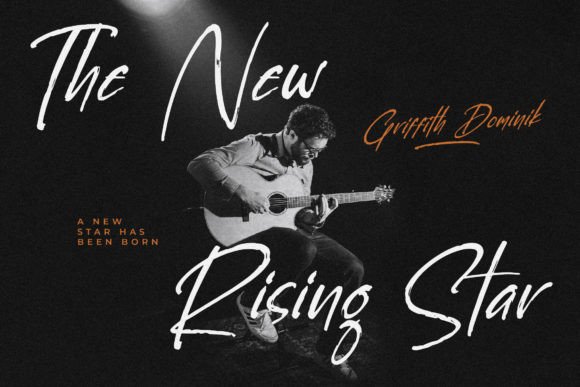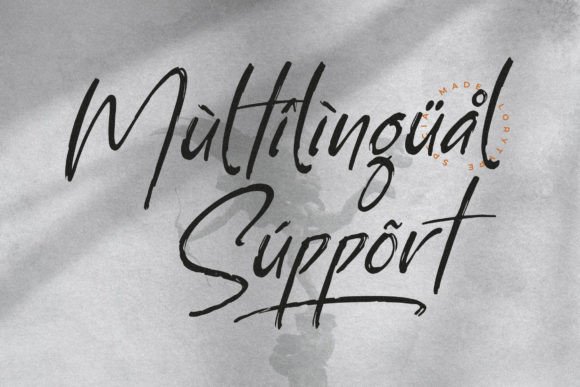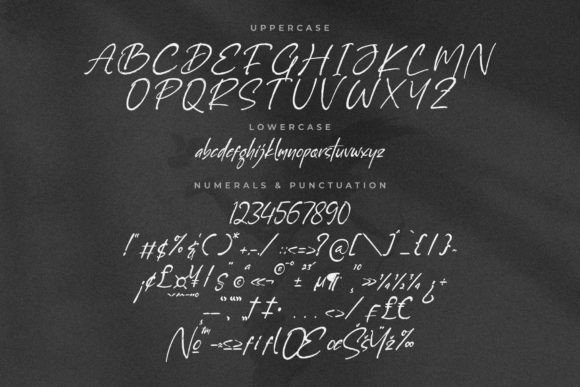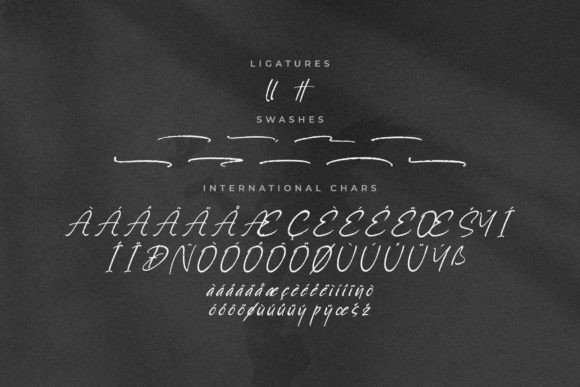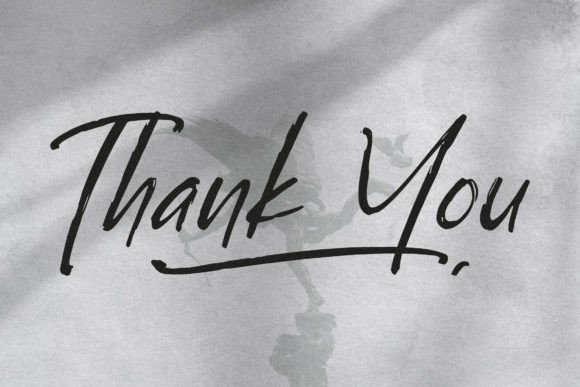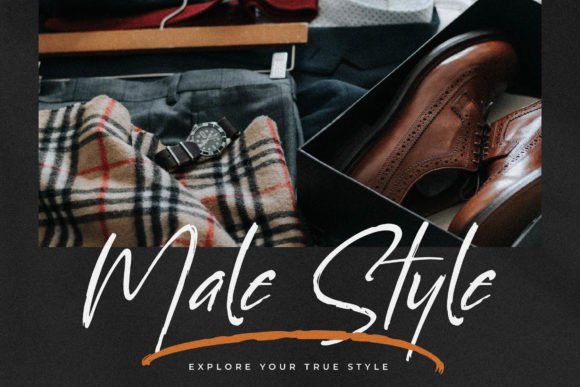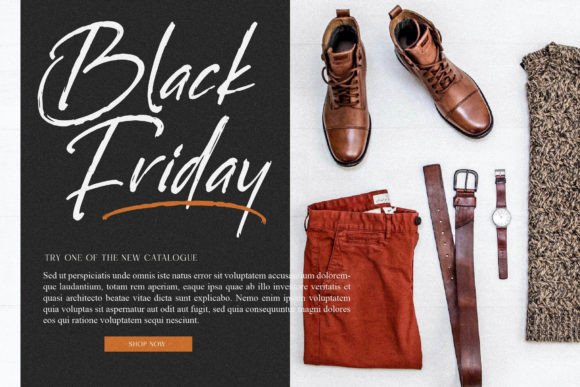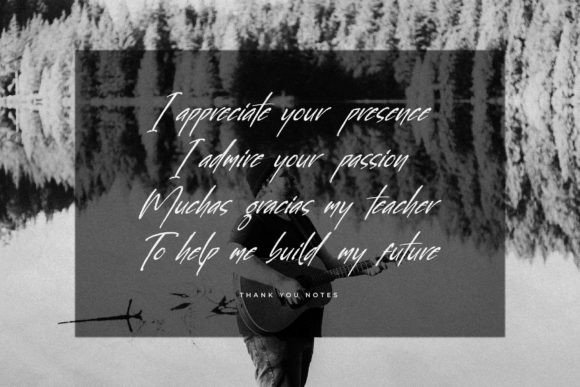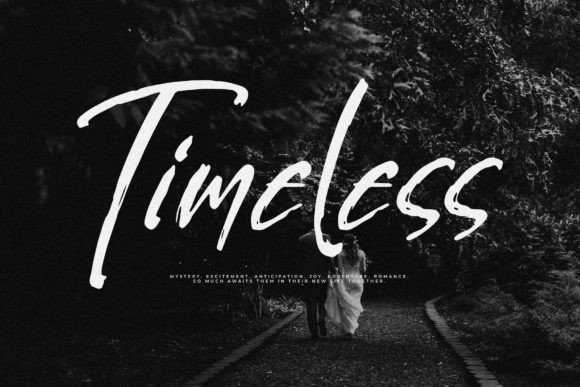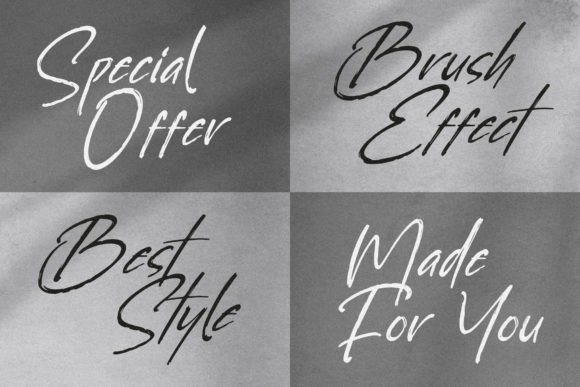
Blockbustter Font
Make a Bold Statement with Blockbustter Handwritten Brush Font
The Blockbustter Handwritten Brush Font is a bold, stylish, and energetic script designed to make your projects stand out. With its handcrafted brushstroke texture and expressive flow, Blockbustter adds character and movement to any design. Whether you’re building a brand or crafting a product label, this font brings a strong and beautiful script taste to the table.
Perfect for Logos, Branding, and Packaging
Blockbustter is ideal for logos, branding materials, and product packaging. Its bold strokes command attention, while its handwritten style adds a creative and personal touch. From modern businesses to artisan makers, this font helps your brand feel unique and memorable.
In addition, Blockbustter works exceptionally well for homeware designs, mugs, t-shirts, and shopping bags—giving every item a signature look that reflects energy and originality.
A Brush Script with Versatility and Impact
What sets the Blockbustter Brush Font apart is its strong presence and versatility. Each character is crafted with the texture of real brush strokes, creating a raw, artistic feel that’s both trendy and timeless.
Despite its bold look, the font remains highly legible, even at smaller sizes. Therefore, it’s perfect not only for headers and titles but also for stylized quotes, labels, and captions.
Ideal for Events, Cards, and Print Projects
Beyond branding, Blockbustter is a fantastic choice for invitation cards, greeting cards, name cards, and event signage. It adds personality and flair to book covers, posters, and even photography watermarks.
Because of its handcrafted aesthetic, this font is particularly popular in lifestyle and creative industries, including fashion, design, and event planning.
Why Designers Love Blockbustter Brush Font
• Handwritten brush style with bold, textured strokes
• Perfect for branding, packaging, and fashion items
• Highly readable and impactful in print and digital formats
• Great for quotes, cards, posters, t-shirts, and more
• Adds personality, energy, and modern style to any design
Add Energy and Style to Every Design
In conclusion, the Blockbustter Handwritten Brush Font is a powerful creative tool for designers looking to make a bold visual impression. Its brushstroke texture and script style bring a handcrafted elegance to any project—whether you’re designing for a modern brand, personal event, or creative product.
Let Blockbustter transform your words into works of art. With its vibrant energy and strong personality, it’s the perfect font to bring life, movement, and style to all your lovely design ideas.